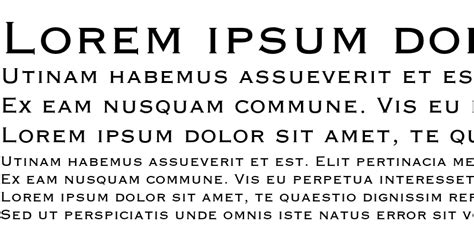
Copperplate Gothic Font. Web download copperplate gothic bold regular for free. The mix of simple capital letterforms with delicate serifs feels both sturdy and.
View sample text, character map, user rating and review for copperplate gothic bold regular Download copperplate gothic for free, view sample text, rating. Originally designed in 1901, copperplate gothic was first released as a font family containing several weights and condensed variations. The mix of simple capital letterforms with delicate serifs feels both sturdy and. Web download copperplate gothic bold regular for free. 1 style uncategorized 430 downloads. Designed by frederic goudy in 1902, copperplate gothic is an american classic. Here we are introducing the gothic serif typeface known as the copperplate gothic font.
The mix of simple capital letterforms with delicate serifs feels both sturdy and. Here we are introducing the gothic serif typeface known as the copperplate gothic font. Download copperplate gothic for free, view sample text, rating. 1 style uncategorized 430 downloads. The mix of simple capital letterforms with delicate serifs feels both sturdy and. View sample text, character map, user rating and review for copperplate gothic bold regular Web download copperplate gothic bold regular for free. Designed by frederic goudy in 1902, copperplate gothic is an american classic. Originally designed in 1901, copperplate gothic was first released as a font family containing several weights and condensed variations.